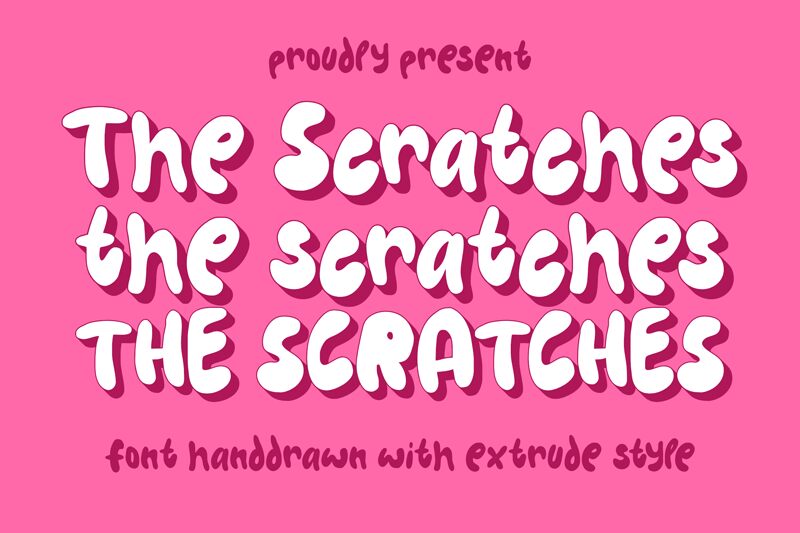
The Scratches font, designed by Lettersweet Studio, is a captivating display typeface that radiates playful energy. With its bold presence and cartoon-inspired style, this font strikes a delightful balance between whimsy and clarity. Each character features lively imperfections and exaggerated curves, giving it an animated feel that draws the eye.
Ideal for various creative projects, The Scratches is perfect for children’s book titles, vibrant posters, or branding elements aiming to convey fun and creativity. Its engaging appearance makes it a standout choice for capturing attention in any playful context while ensuring readability remains intact. Embrace the charm of The Scratches to bring an imaginative flair to your designs!
The Scratches